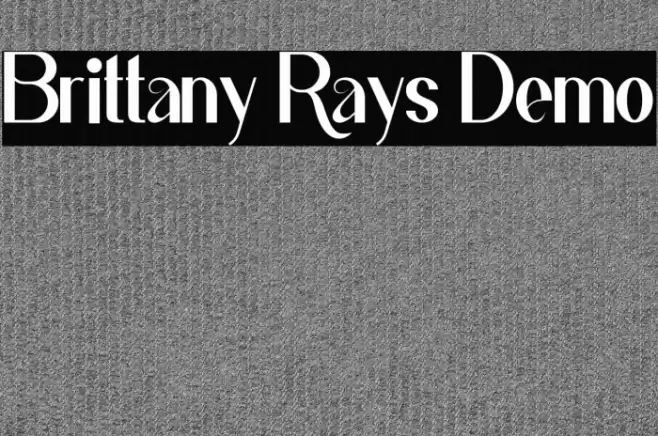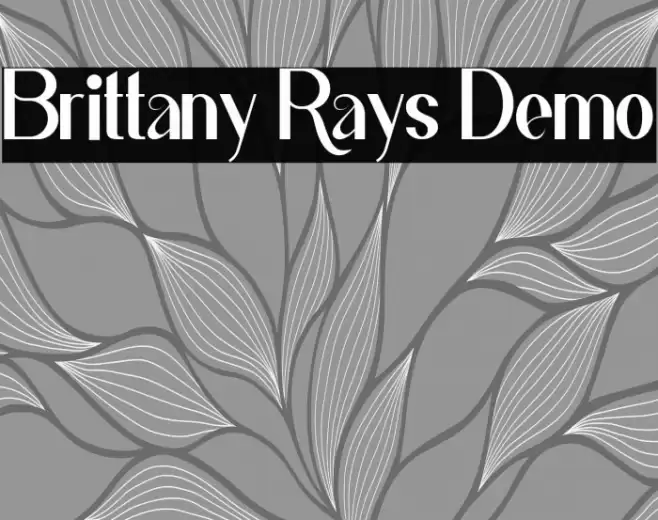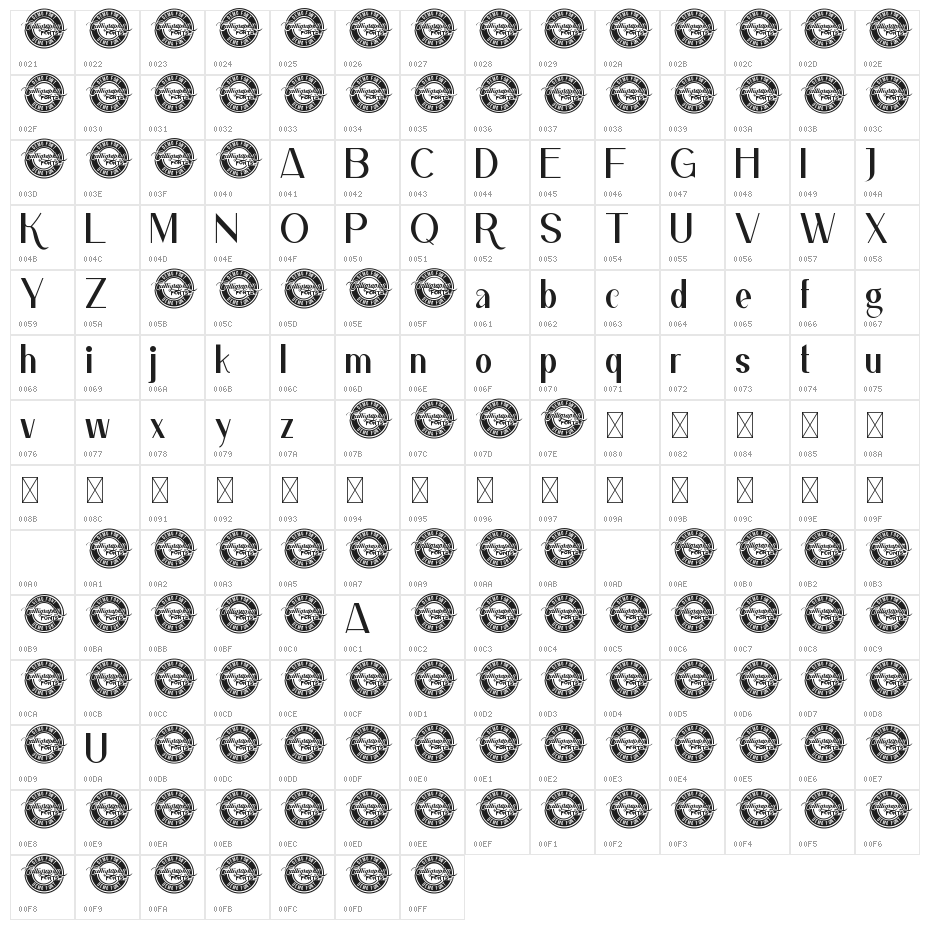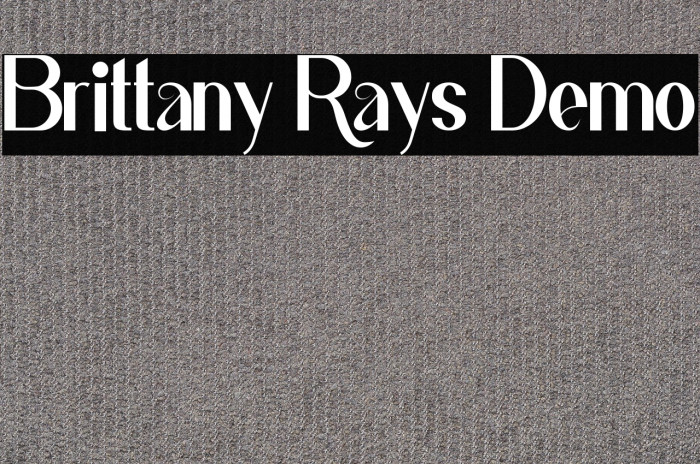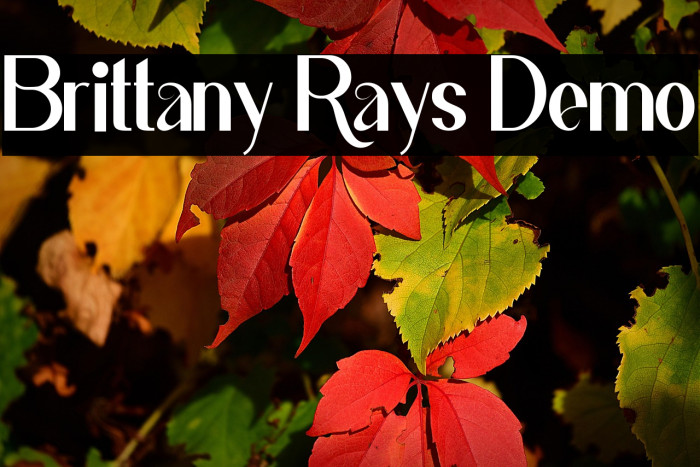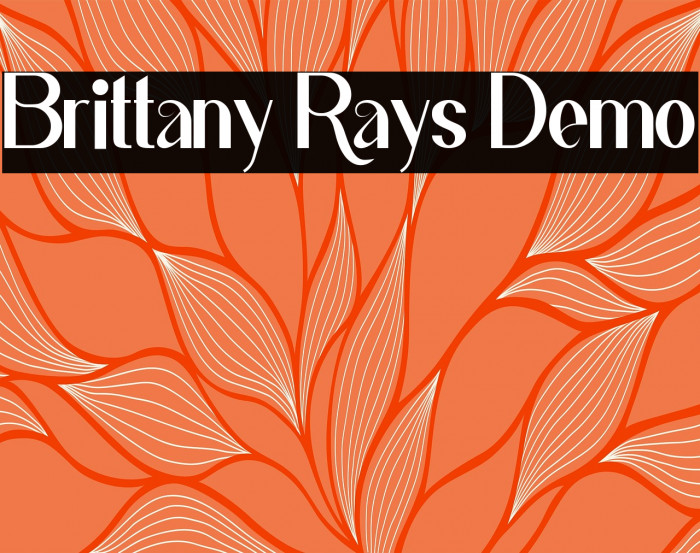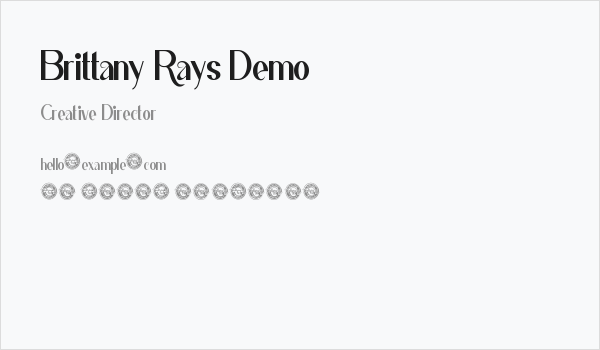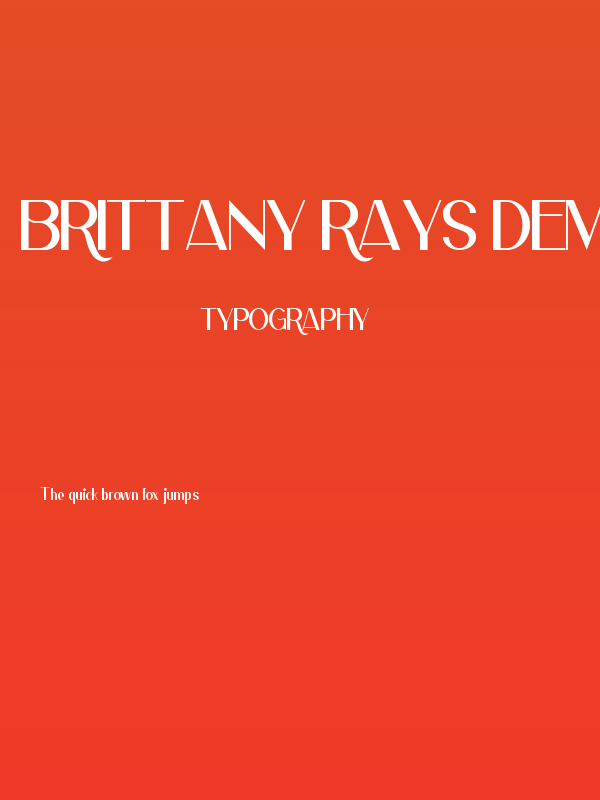
Brittany Rays Demo Font
Brittany Rays Demo Description
This font features a modern and elegant design with a high contrast between thick and thin strokes. The uppercase letters are tall and slender, with a sophisticated flair that adds a touch of luxury. The lowercase letters maintain a consistent style, offering a smooth and flowing appearance. The overall design is clean and stylish, making it suitable for high-end branding and editorial use. The special characters are crafted with the same attention to detail, ensuring a cohesive look across all text elements. This font is perfect for projects that require a touch of elegance and modernity.
A modern, elegant font with high contrast and sophisticated flair from Regular fonts.
- Font: Brittany Rays Demo
- Proposed Projects: Ideal for luxury branding, editorial design, fashion magazines, and high-end product packaging.
- Overall Style: Modern, Elegant
- Use Case: Headlines, Logos, Branding